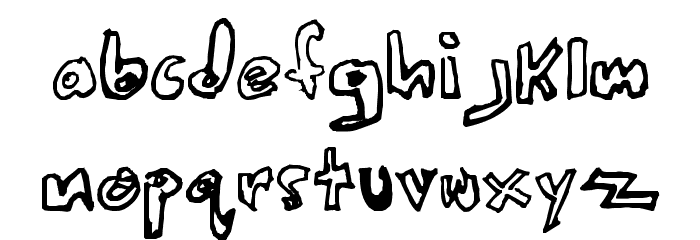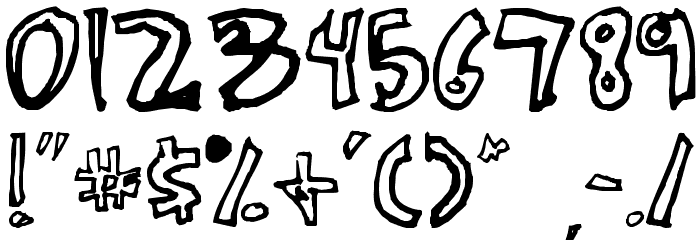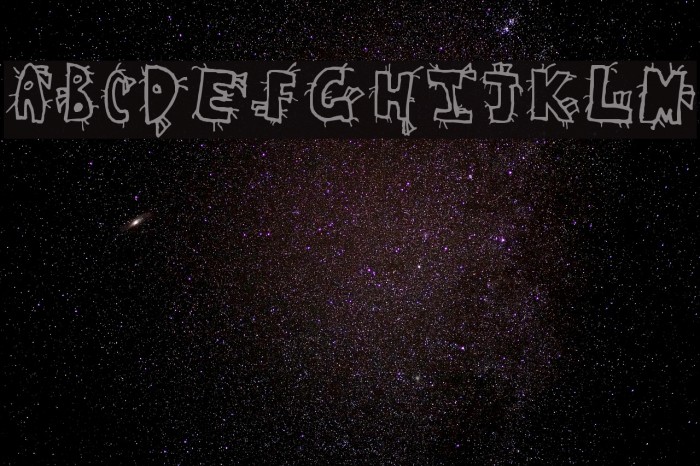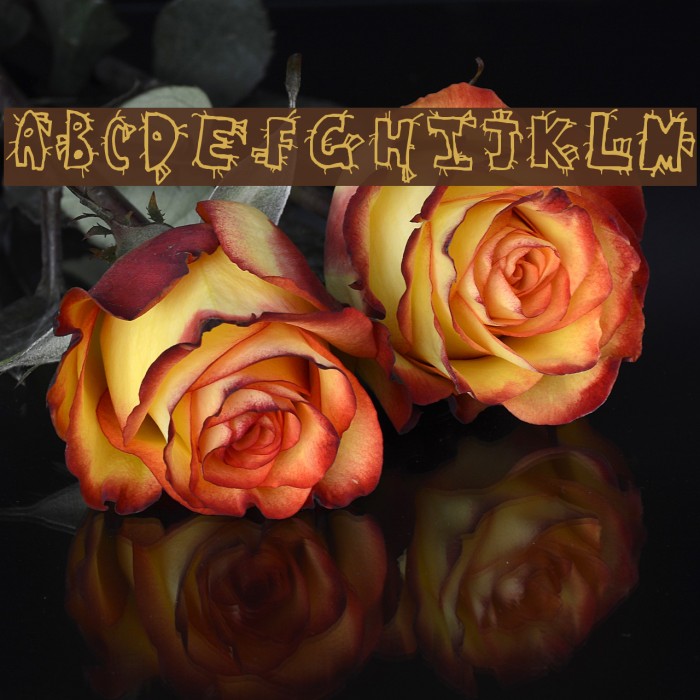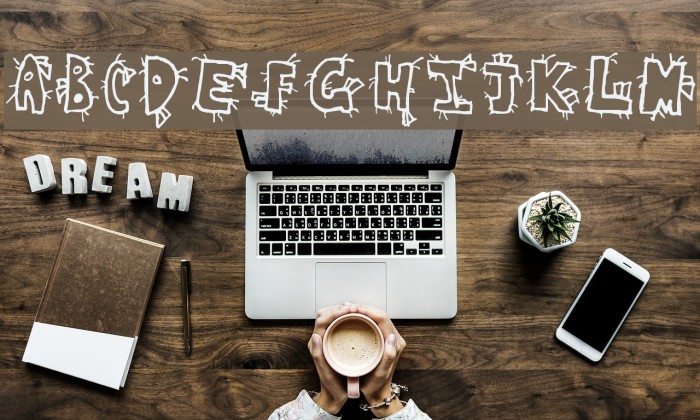
Crazy Beaver Font
This font features a playful and chaotic design, with each character appearing as if it has been hand-drawn with a rough, sketchy style. The uppercase letters are bold and irregular, with jagged edges and a sense of movement, while the lowercase letters maintain a similar aesthetic but with a slightly more subdued appearance. The numbers are equally dynamic, with exaggerated curves and angles that add to the overall whimsical feel. Special characters are included, each maintaining the font's distinctive, quirky style. This font is perfect for projects that require a fun and unconventional look.
A playful, hand-drawn font with a chaotic and sketchy style.
- Proposed Projects: Ideal for children's book covers, comic strips, playful branding, and creative posters.
- Overall Style: Whimsical, Playful
- Use Case: Headlines, Posters, Creative Projects